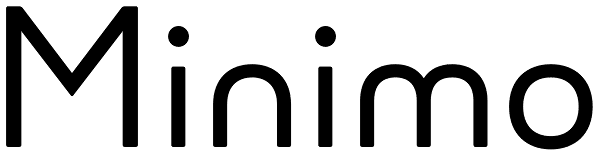
Minimo
Minimo Font Family comes in 4 weights; Normals and Obliques. To have an eye-pleasing view, the corners are rounded and the lowercases are made smaller than the standard. With its soft structure, it is aimed to be legible even in the small sizes and...
Minimo
Minimo Medium
Minimo Medium Oblique
Minimo Oblique
Minimo Light
Minimo Light Oblique
Minimo Bold
Minimo Bold Oblique